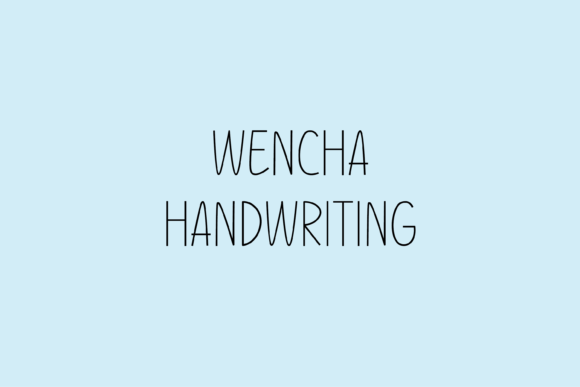
Dive into the enchanting world of Wencha Font, a playful and endearing script typeface that will add a touch of whimsy to your creative projects. Inspired by the innocence of childhood, this font dances with a unique charm that's sure to captivate your audience.
With its graceful strokes and charming imperfections, Wencha Font effortlessly evokes a sense of nostalgia and warmth. Each character is meticulously crafted to bring a personal touch to your designs, ensuring that your messages resonate with an authentic and heartfelt appeal.
Unleash your imagination and let Wencha Font transform your projects into captivating masterpieces. Whether you're a designer, an artist, or simply a lover of beautiful typography, this font is your perfect companion for creating designs that speak to the heart.
Step into the realm of Wencha Font and discover a world where creativity knows no bounds. Let your imagination soar as you explore the endless possibilities of this enchanting script. Embrace the magic of Wencha Font and elevate your designs to new heights of brilliance.